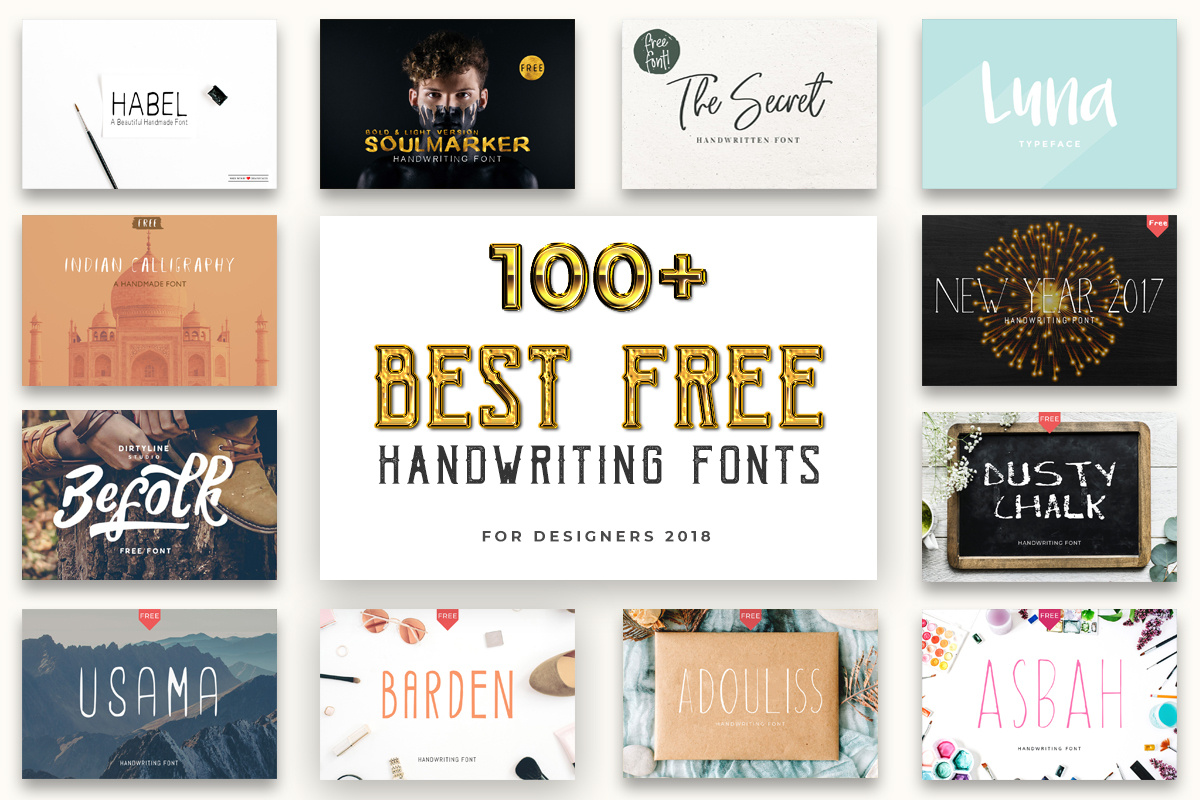
100 Best Free Handwriting Fonts For Designers 2020
Do you love free fonts the way we do? If so, then you’re going to enjoy our list of the 100+ best free handwritten fonts for you to use in your 2019 handmade design and craft projects! This collection contains 100+ beautiful handwriting fonts with some clean brush fonts, this collection is full of awesome and unique creative script and handmade free fonts for your personal creative projects.